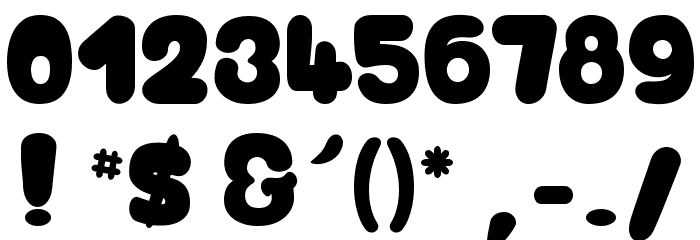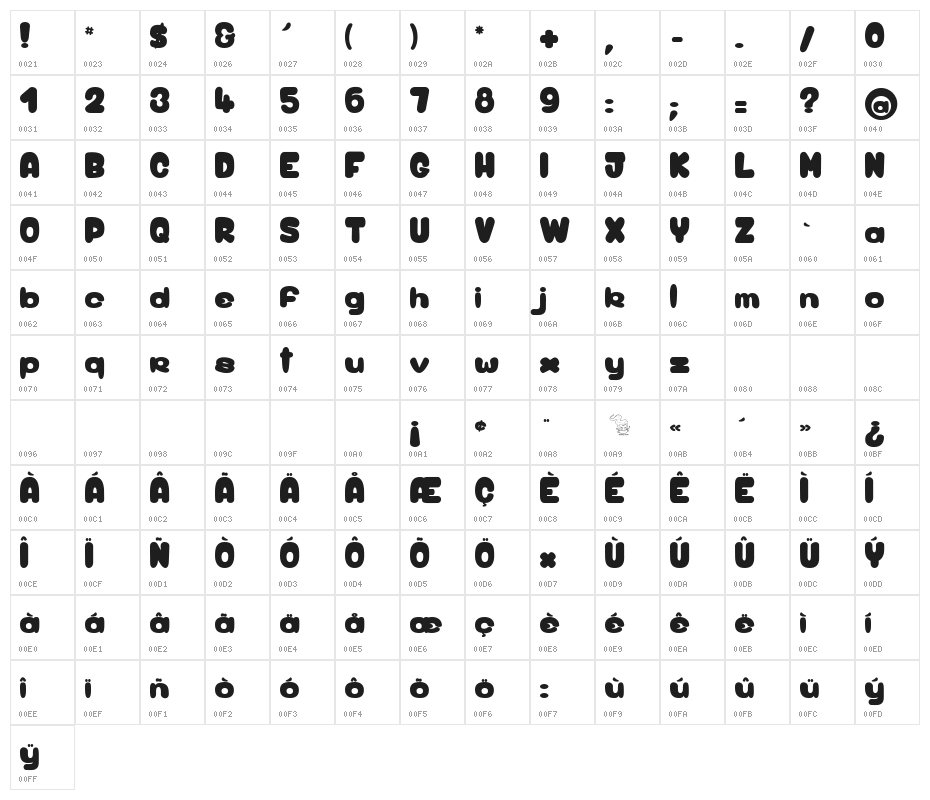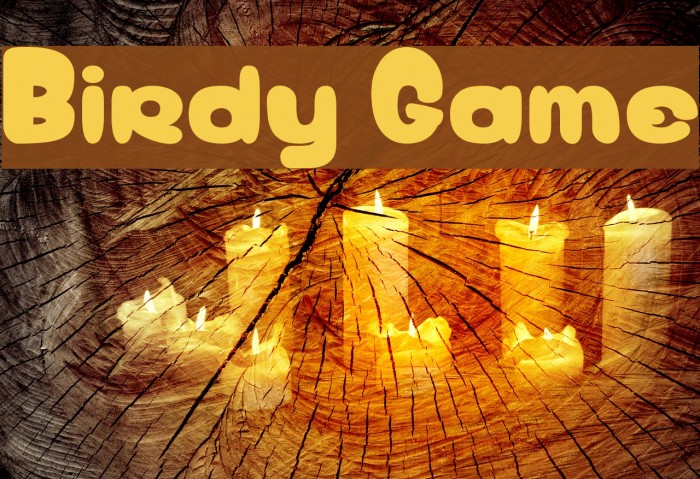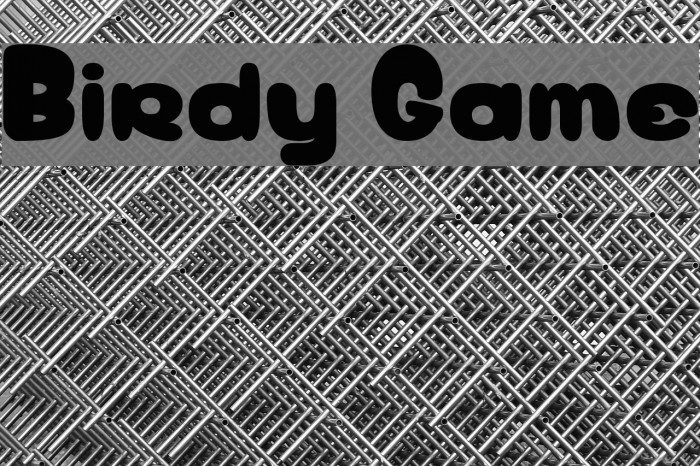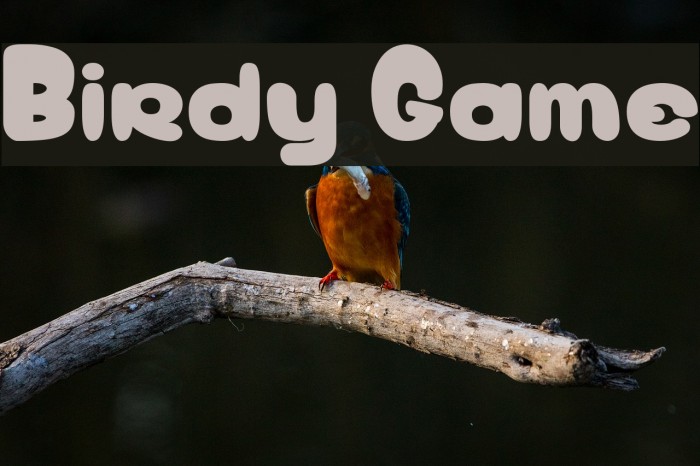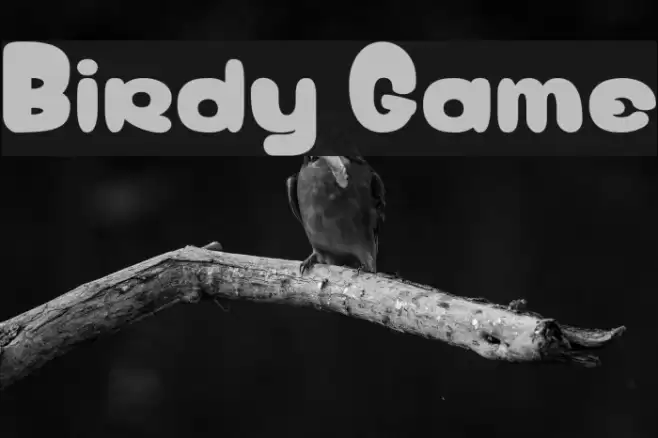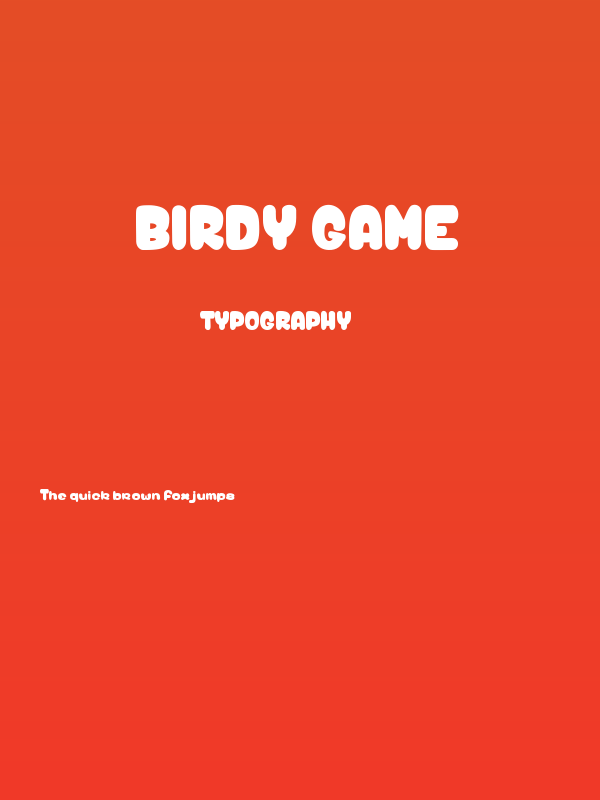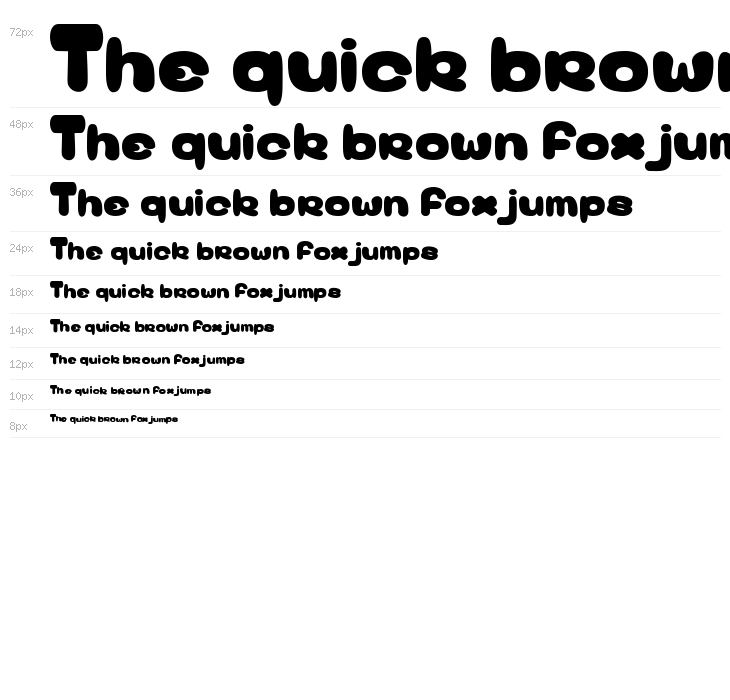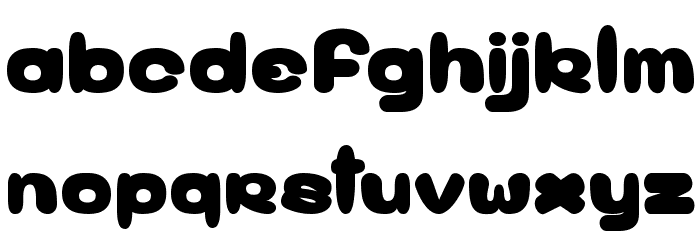
Birdy Game Font
Birdy Game Description
This playful and bold font features rounded, bubbly characters that exude a sense of fun and whimsy. The uppercase and lowercase letters maintain a consistent thickness, giving the font a cohesive and unified appearance. The numbers and special characters are designed with the same playful style, making them perfect for creative projects. The font's thick, rounded strokes and lack of sharp edges contribute to its friendly and approachable look, making it ideal for children's materials, games, and casual branding. Its unique style ensures that it stands out in any design, adding a touch of personality and charm.
| Overall Style | Playful, Fun, Whimsical |
| Proposed Projects | Ideal for children's books, game design, playful branding, and casual invitations. |